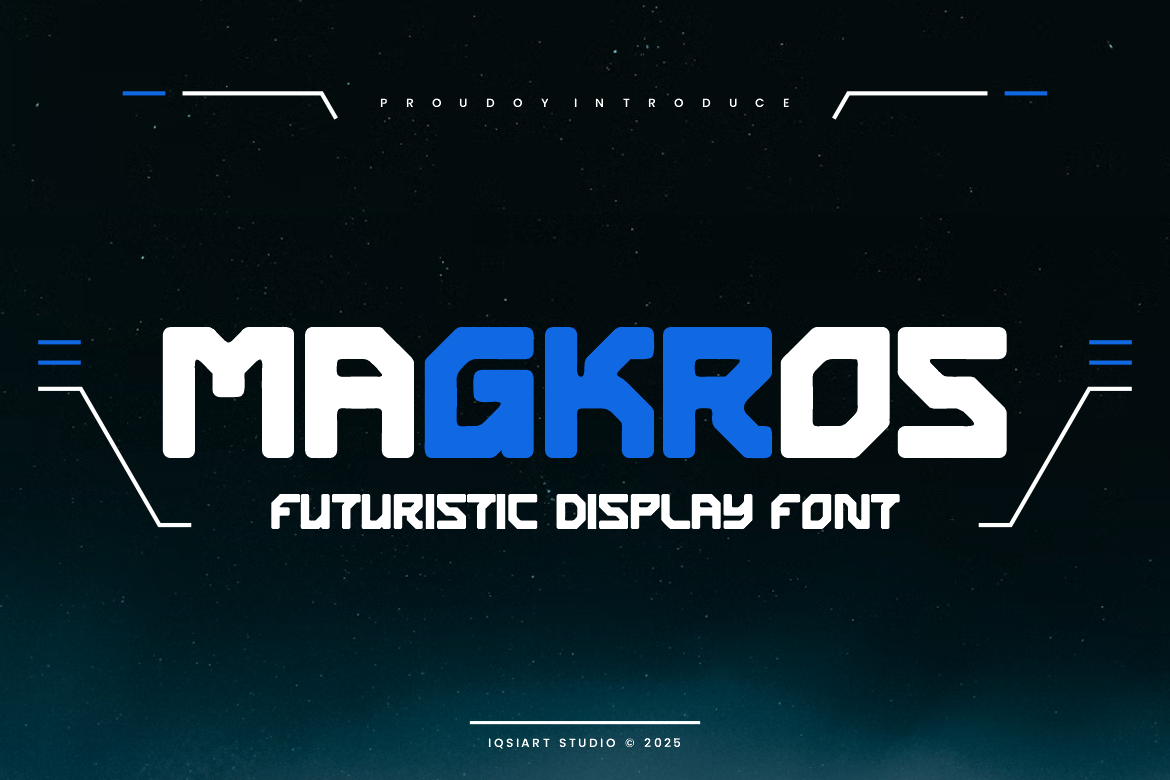
Magkros - Futuristic Font
Magkros Font is a best and authentic display font. This font can be used for your various needs. We provide various themes and font styles. visit our profile to get a wide variety of themes and different font styles you need.